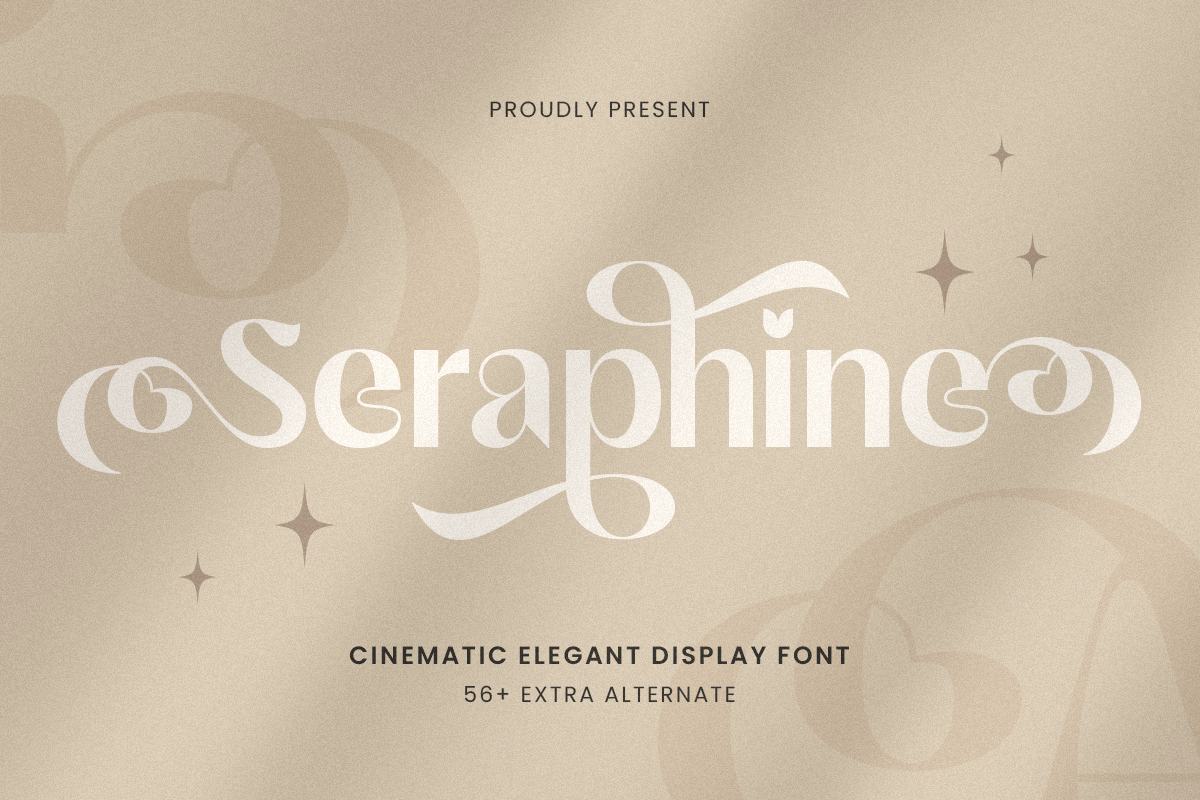
Seraphine
-Cinematic Elegant Display FontSeraphine - Cinematic Elegant Display Font
Seraphine is a cinematic display font designed with sophistication in every curve. With its graceful sans serifs, stylish contrast, and high-end letterforms, Seraphine font is perfect for movie titles, fashion branding, editorial layouts, and luxurious packaging. It embodies elegance and drama—ideal for projects that demand a striking visual presence.
Inspired by vintage film posters and modern luxury aesthetics, Seraphine font walks the line between classic and contemporary. Whether you're designing for screen or print, this font captures attention with its elegant proportions and expressive flair.
Let Seraphine font be the headline of your next masterpiece. Its timeless design and cinematic appeal will give your work a bold, elegant identity.
Seraphine Cinematic Elegant Display Font Features:
Elegant Sans Serif Display Style
Perfect for Cinematic Titles, Fashion Brands & Editorials
Punctuation, Numbers, and Symbols
Uppercase and Lowercase Characters
Opentype Swash Alternative Features